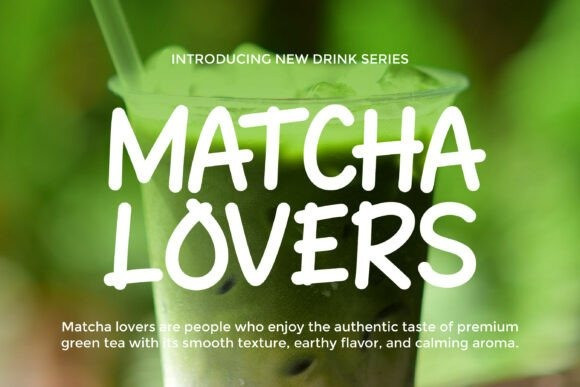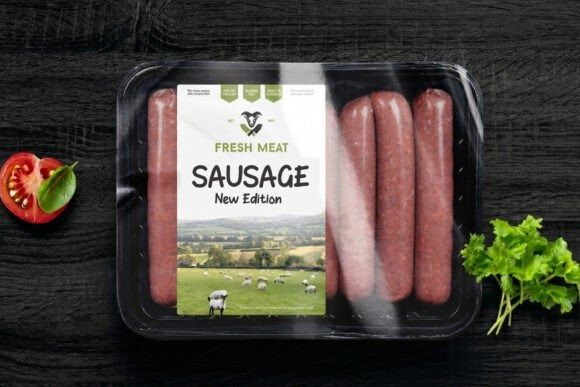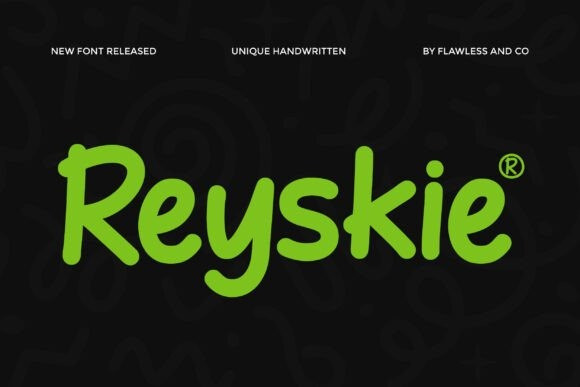
Reyskie Font
Reyskie Font is a cute and unique handwritten typeface designed to bring playful charm and creative personality into your designs. Featuring fun letterforms, natural hand-drawn strokes, and a lively rhythm, Reyskie creates a warm and cheerful visual style that feels expressive and approachable. Its unique handwritten character adds originality and charm, making it perfect for projects that need a fun and memorable touch. Whether for branding, social media, or kids-themed designs, Reyskie delivers a delightful handwritten experience full of energy and creativity.